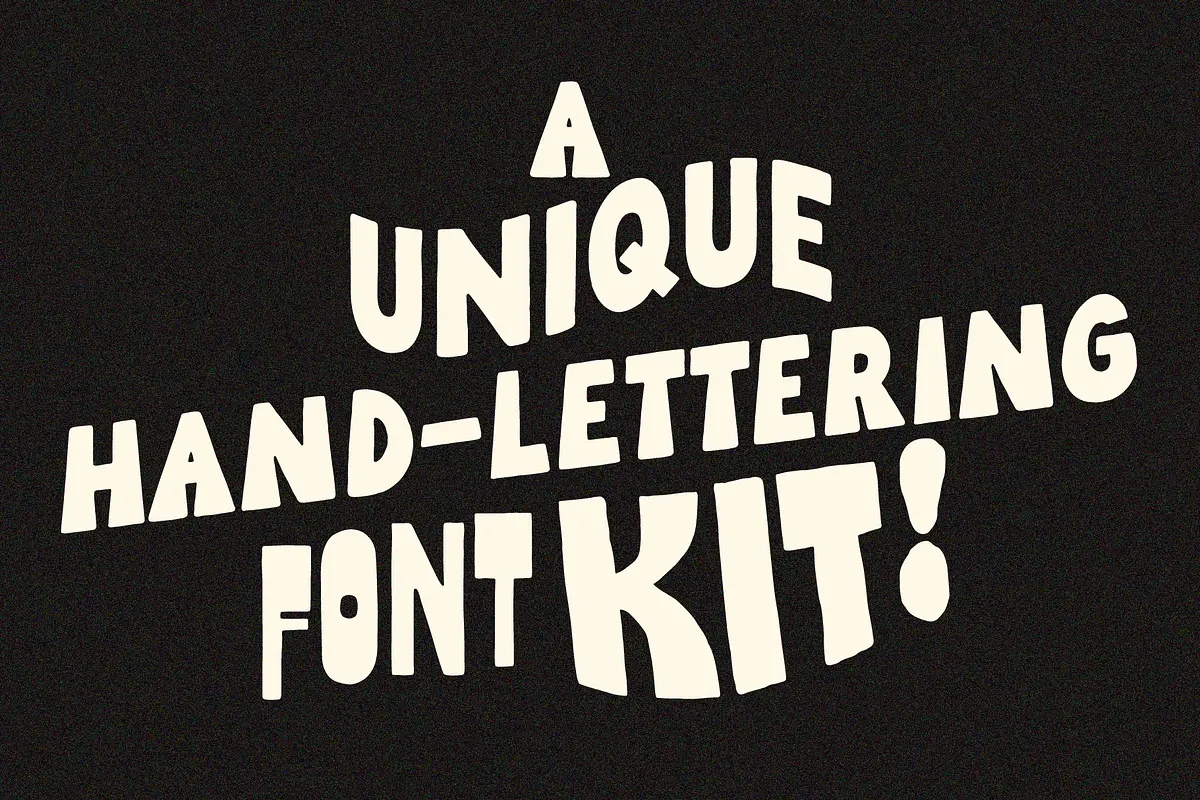
Hand-lettering Kit! Unique! Fonts! Free Download
Hand-lettering Kit! Unique Fonts Free Download
Hand-lettering Kit! Unique Fonts Free Download is a creative and versatile collection of hand-lettered fonts designed to bring an authentic, personal touch to your projects. Featuring a variety of unique fonts with flowing, artistic strokes, this kit is perfect for creating logos, invitations, branding, social media graphics, greeting cards, and more.
The fonts in this kit mimic the beauty and individuality of hand-drawn typography, offering a wide range of styles, from casual and playful to elegant and sophisticated. Whether you’re designing for a craft project, a trendy brand, or a special occasion, these fonts provide you with all the tools needed to create expressive and memorable designs.